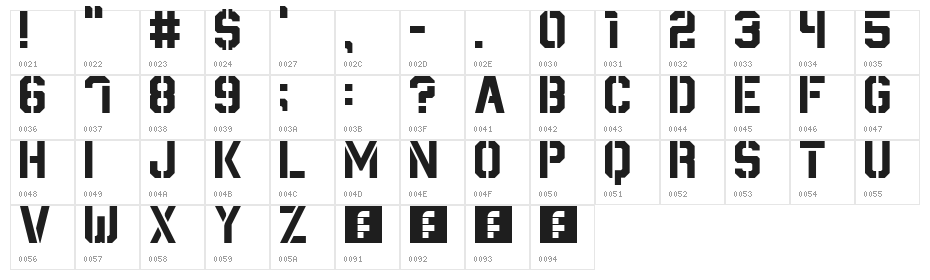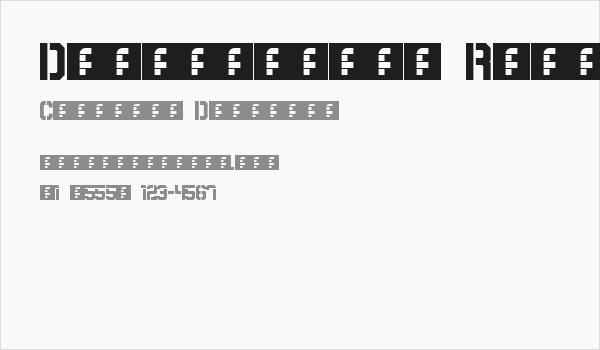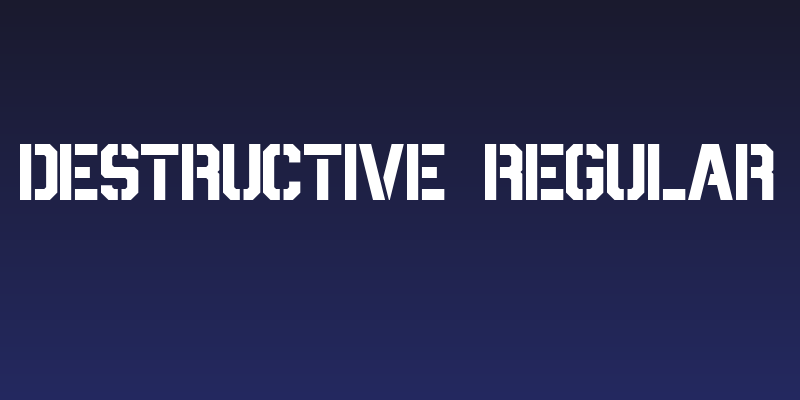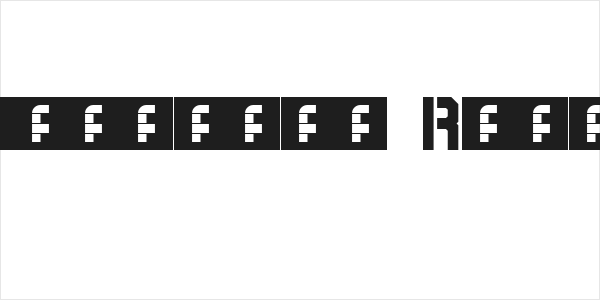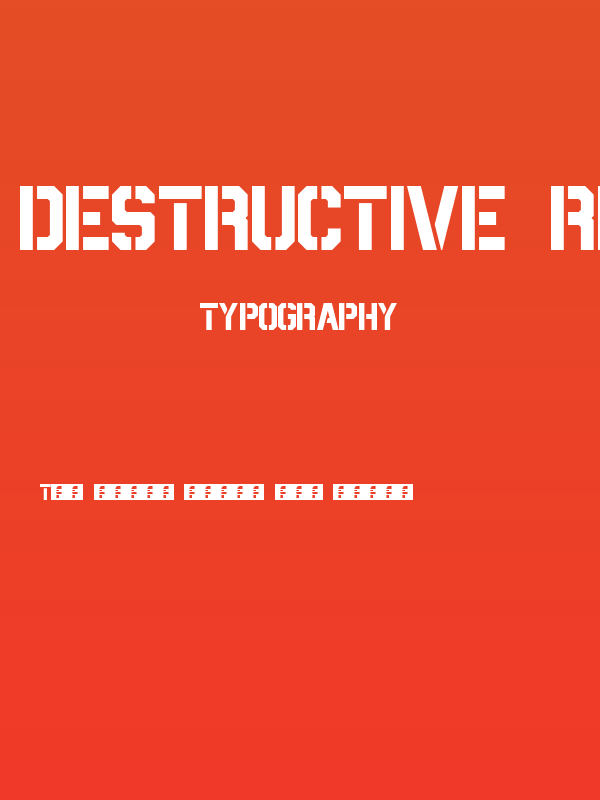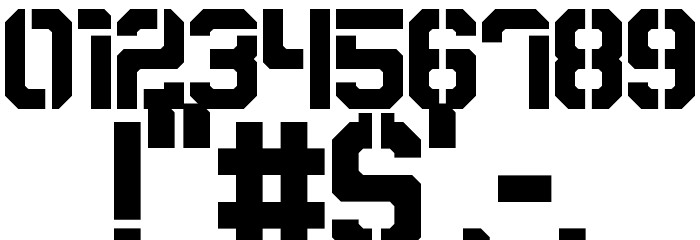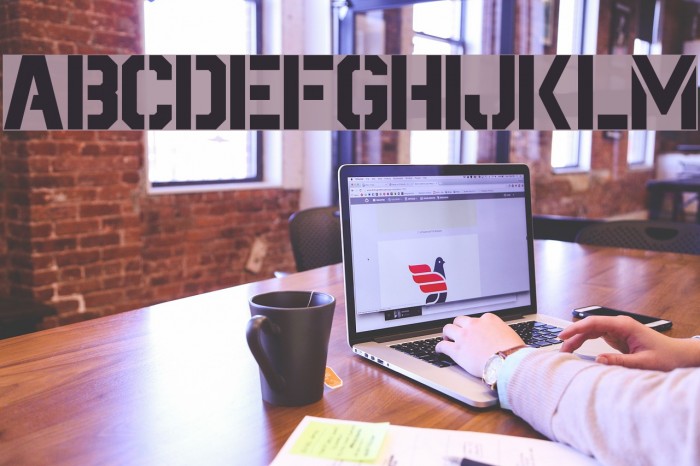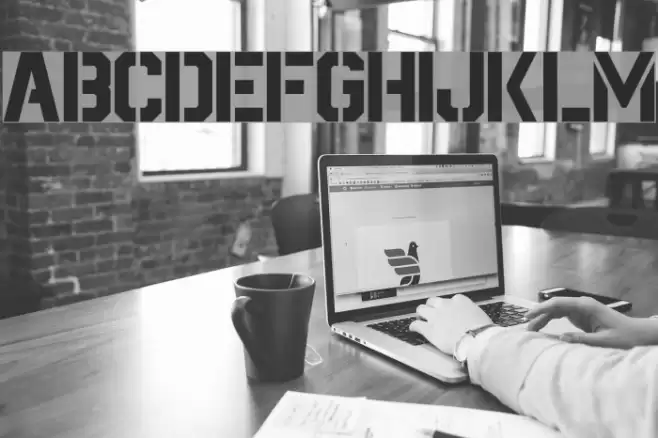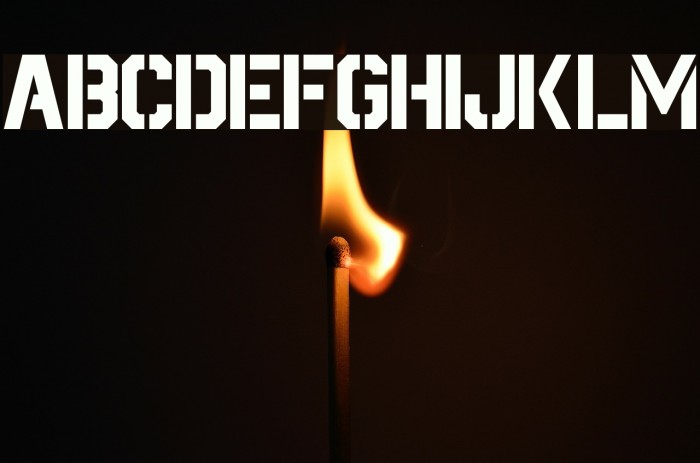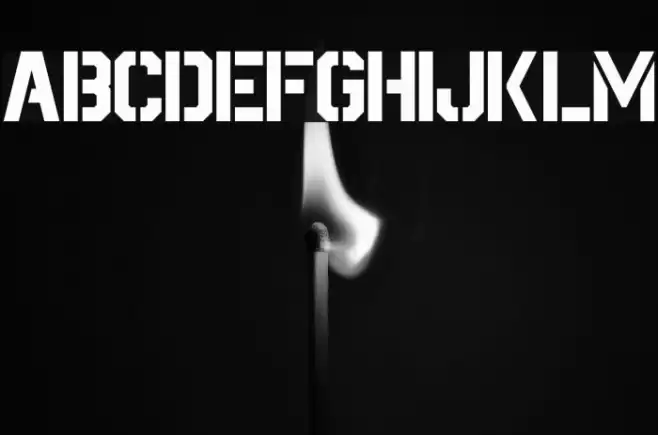
Destructive Regular Font
Destructive Regular Description
This font features a bold, geometric design with a distinctly modern and industrial feel. The characters are constructed with sharp angles and straight lines, giving them a strong, impactful presence. The cut-out sections within each letter add a unique, almost stencil-like quality, enhancing its visual interest. The uppercase and lowercase letters maintain a consistent style, ensuring uniformity across text. Numbers and special characters are designed with the same boldness and angularity, making them stand out effectively. This font's striking appearance makes it ideal for attention-grabbing designs.
| Proposed Projects | Ideal for branding, posters, headlines, and any design requiring a strong, modern aesthetic. |